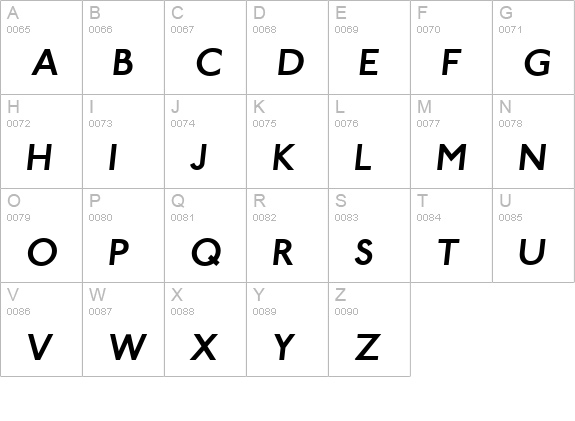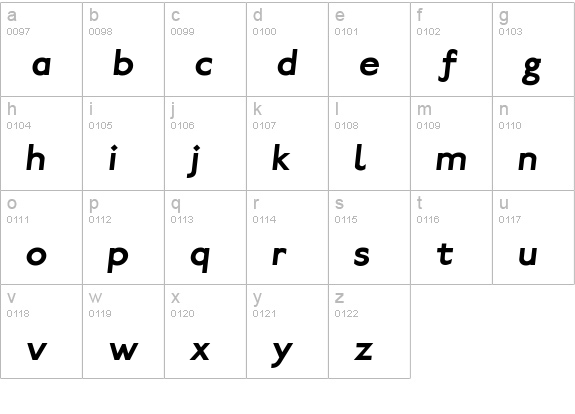
Paddington-BoldItalic is a visually captivating and versatile font that effortlessly combines elegance with a touch of playfulness. This font exudes confidence and sophistication, making it the perfect choice for a wide range of creative projects. With its bold and italicized letterforms, Paddington-BoldItalic adds a unique and dynamic element to any design. Whether used in headlines, logos, or branding materials, this font commands attention and leaves a lasting impression. What sets Paddington-BoldItalic apart is not just its stunning aesthetic, but also its accessibility. It is freely available to download at FontsMarket.com, allowing designers and enthusiasts alike to easily incorporate this stunning font into their projects. The smooth curves and sharp angles of Paddington-BoldItalic create a harmonious balance between strength and delicacy, making it an excellent choice for both formal and informal occasions. From fashion editorials to product packaging, this font effortlessly enhances any visual composition. The versatility of Paddington-BoldItalic is further showcased through its compatibility with various design software and platforms. Whether you're working on a print project or a digital design, this font adapts seamlessly, ensuring a consistent and professional look across different mediums. In addition to its striking appearance, Paddington-BoldItalic also offers excellent legibility, even at smaller sizes. This makes it a reliable choice for body text, ensuring that your message is conveyed clearly and effectively. Overall, Paddington-BoldItalic is a font that embodies style, creativity, and accessibility. Its bold and italicized nature, coupled with its versatility and legibility, make it a must-have for designers and typographers seeking to make a bold statement. Download it for free at FontsMarket.com and unlock the potential to create stunning designs that captivate and inspire.